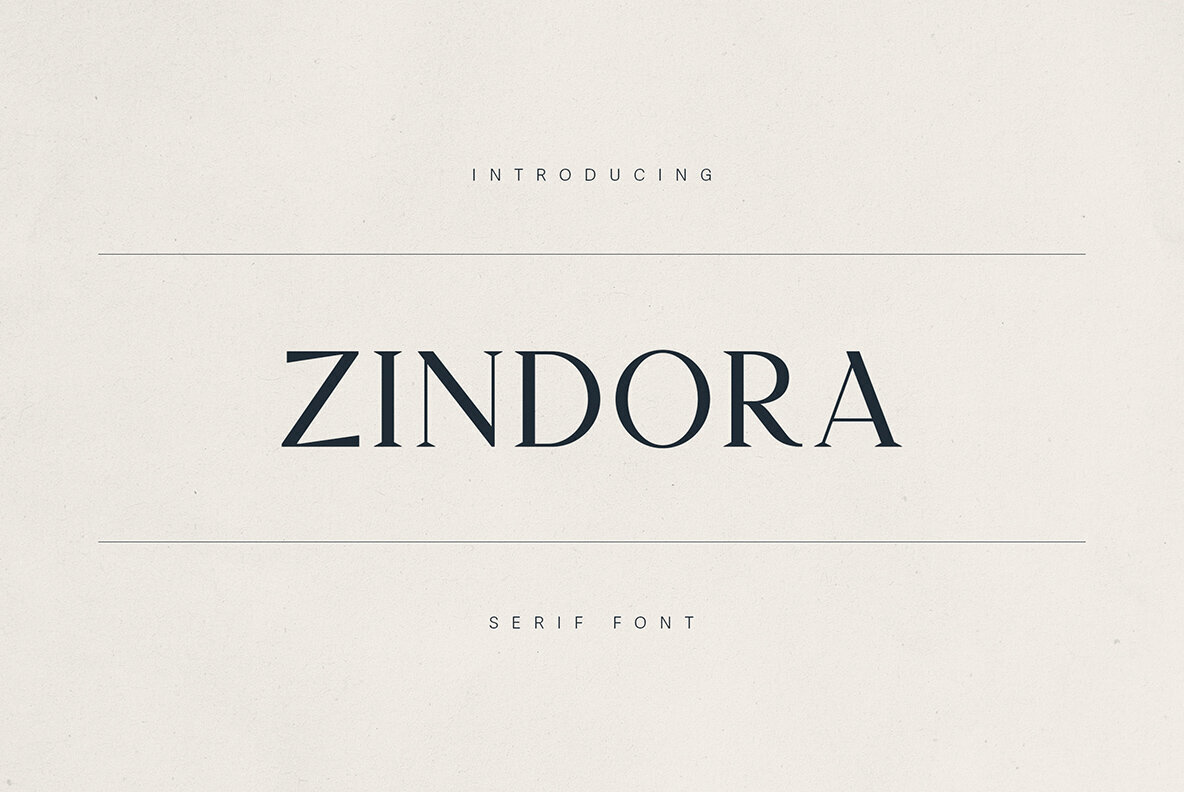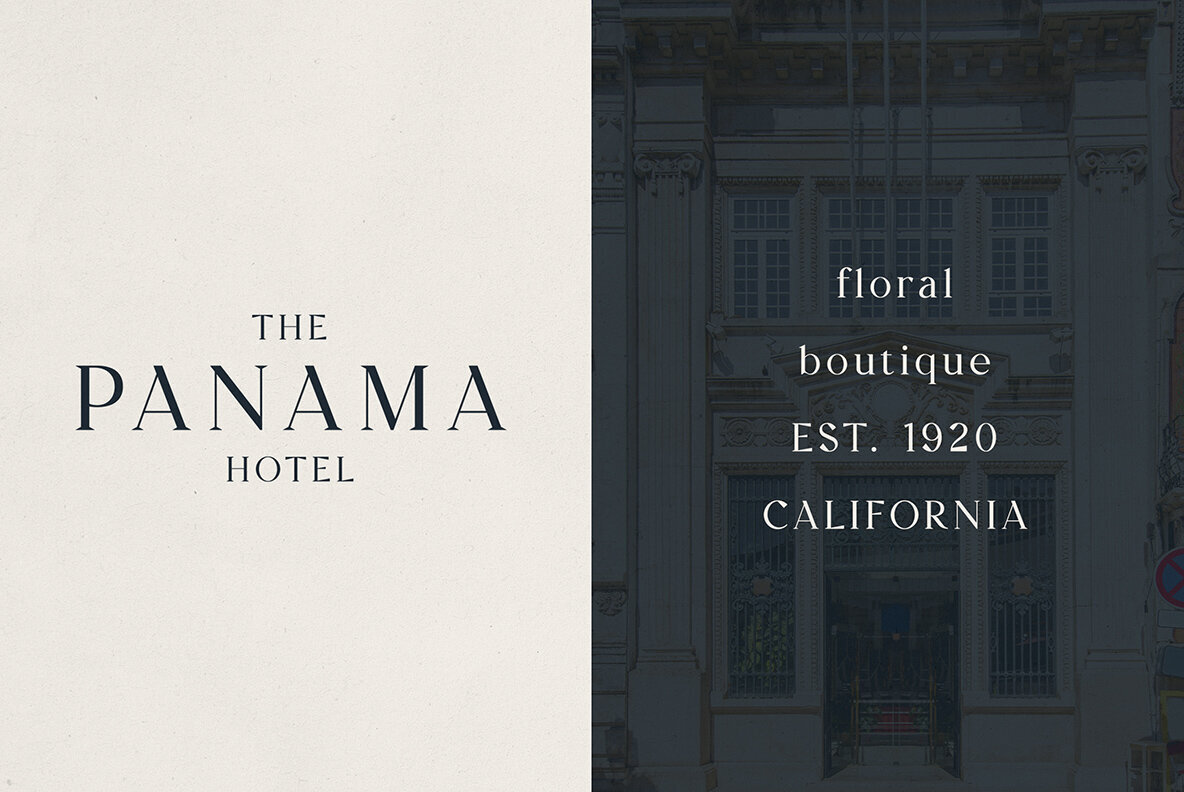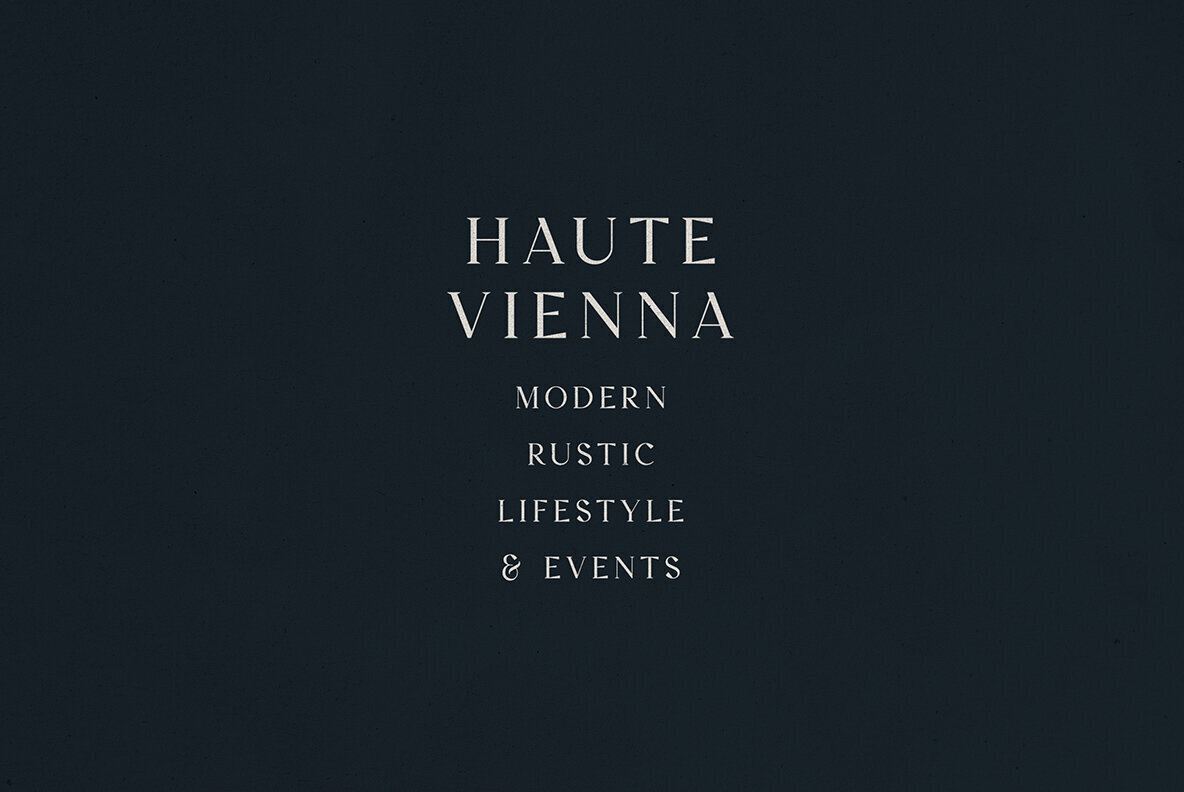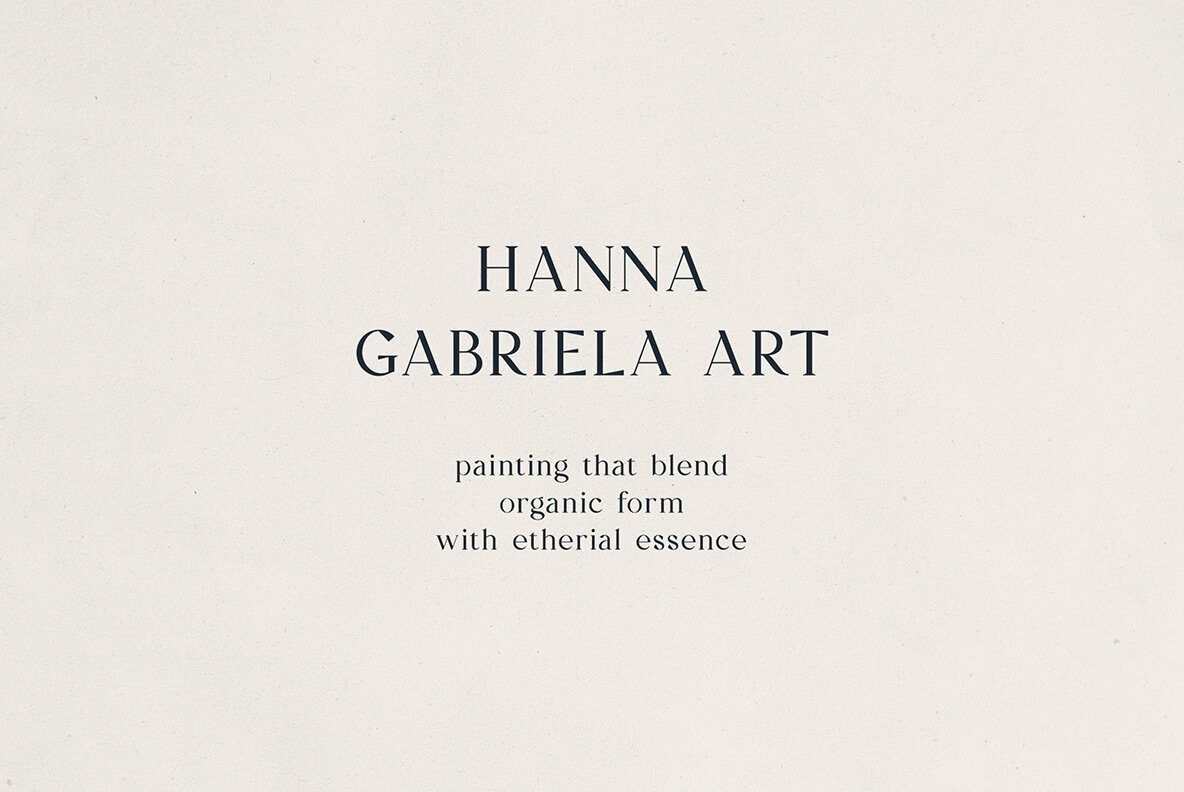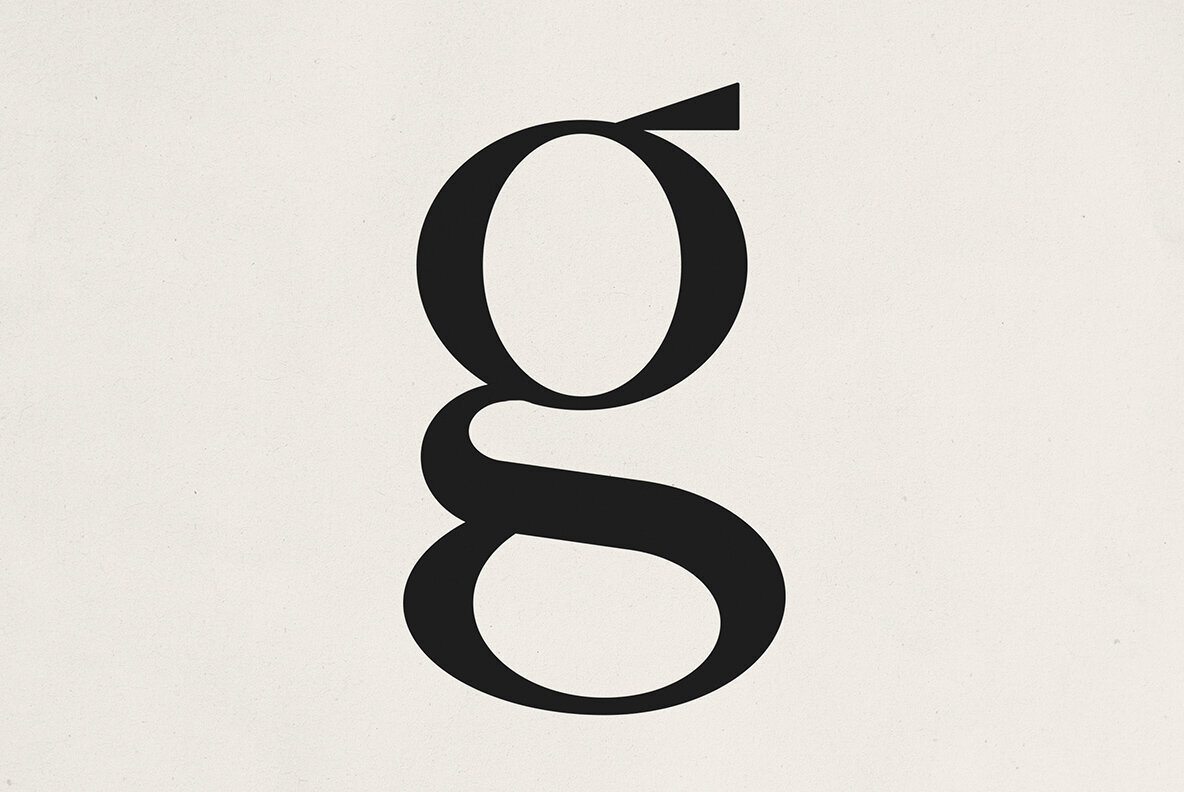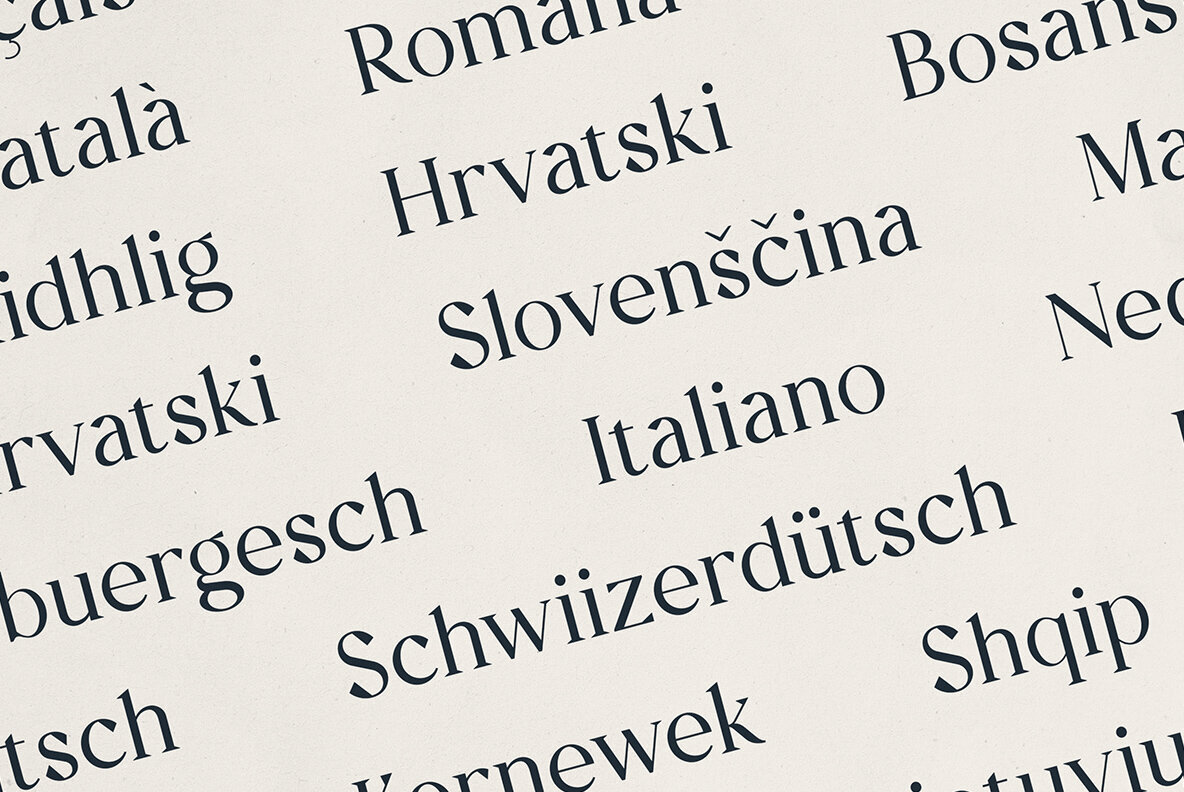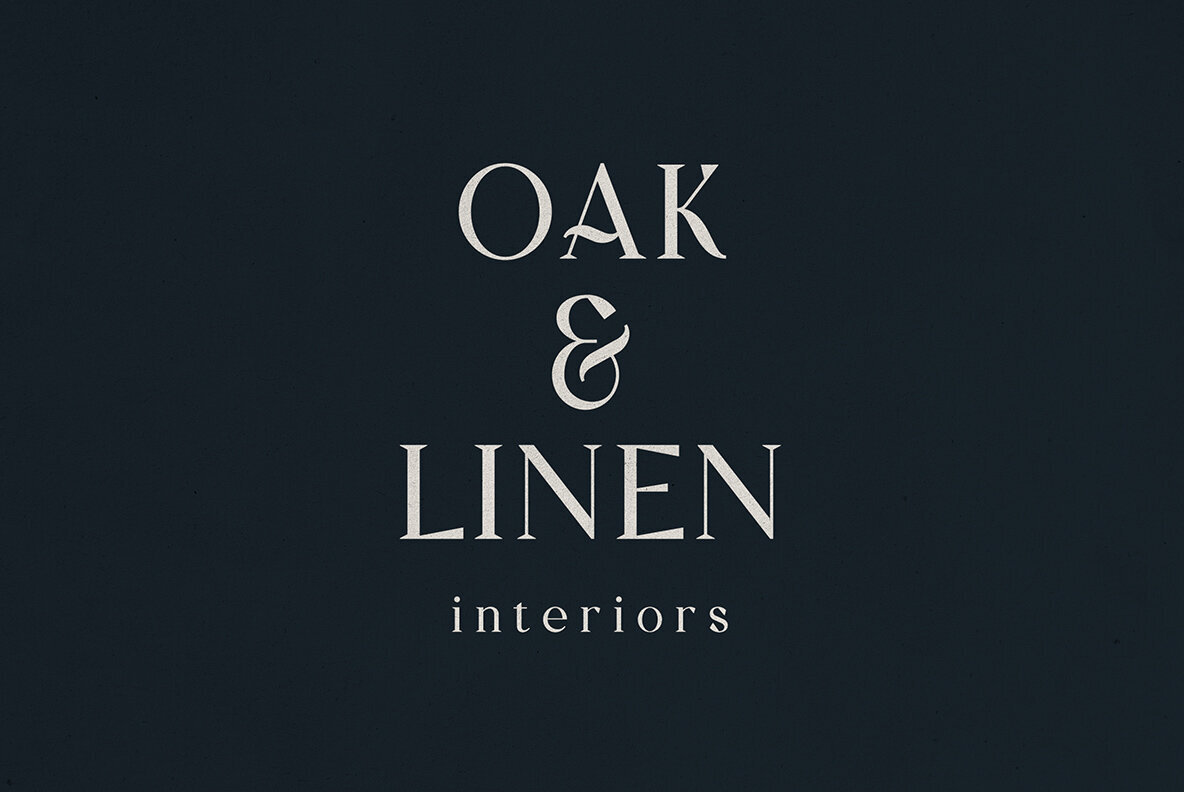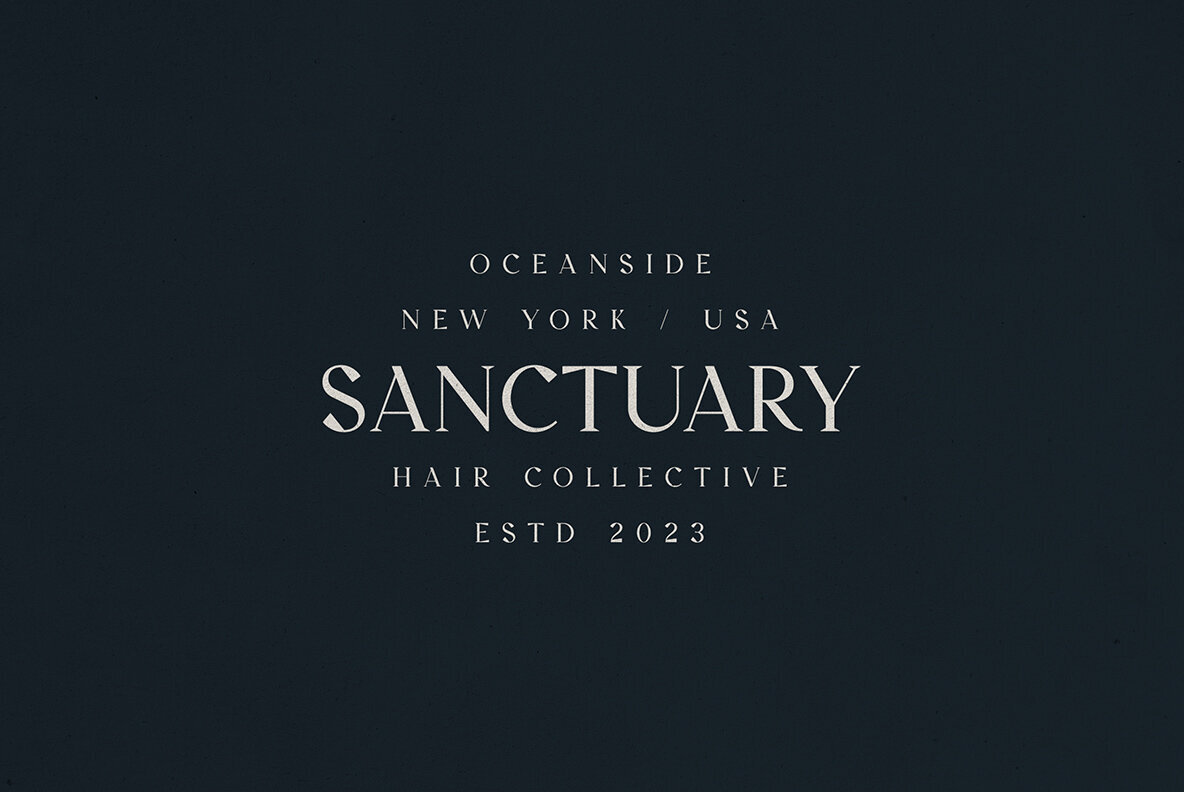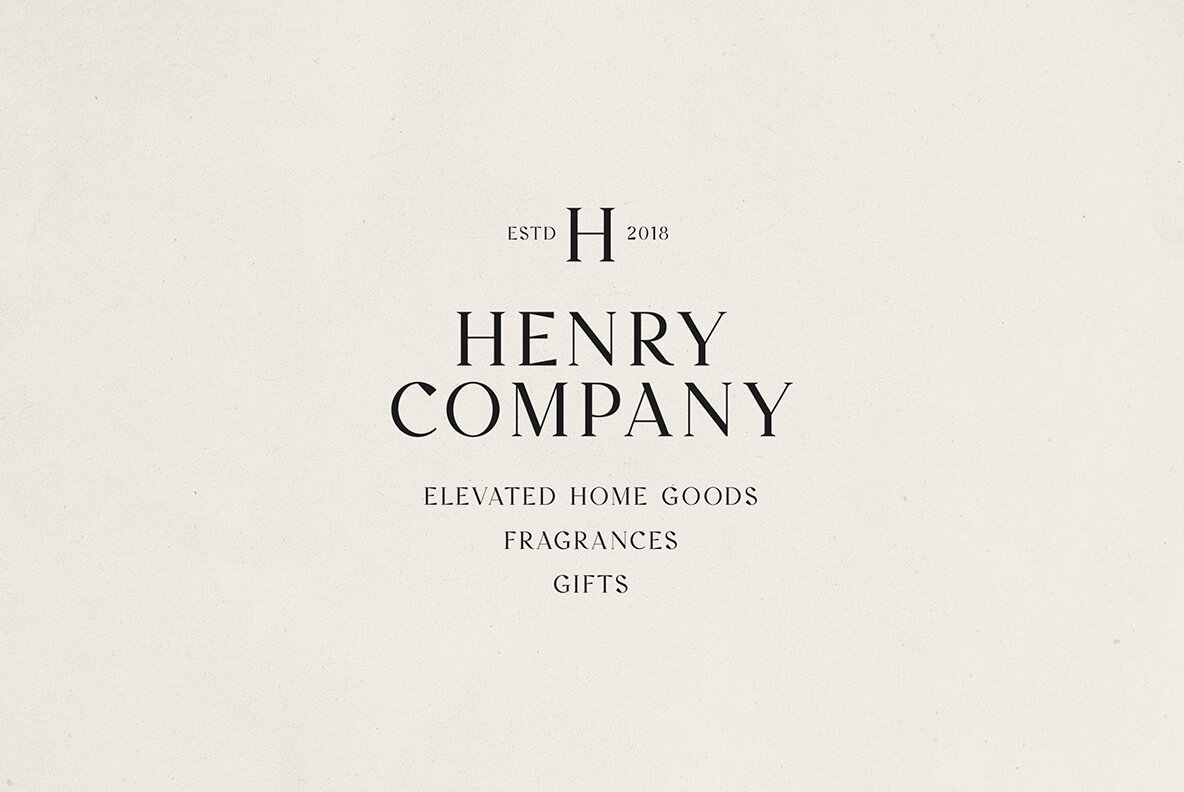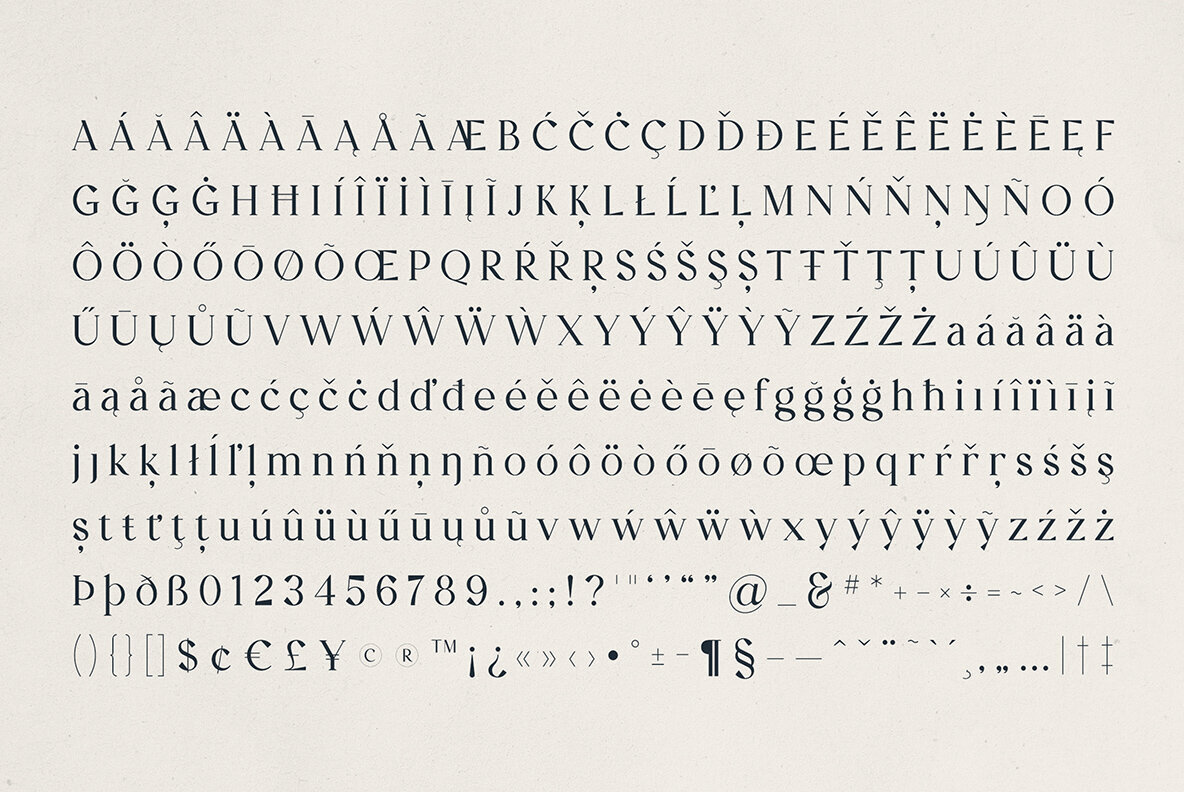
Zindora Font
Zindora
Zindora is a high-contrast serif font that masterfully merges elegance with modern minimalism. Featuring graceful curves, sharp serifs, and an editorial vibe, Zindora is crafted to enhance branding, packaging, logos, invitations, and editorial layouts with timeless charm. Zindora doesn’t whisper; it speaks with elegance. Infuse your projects with heritage and a modern luxurious touch.Zindora – A Modern Classic Serif Font
What You’ll Love About Zindora